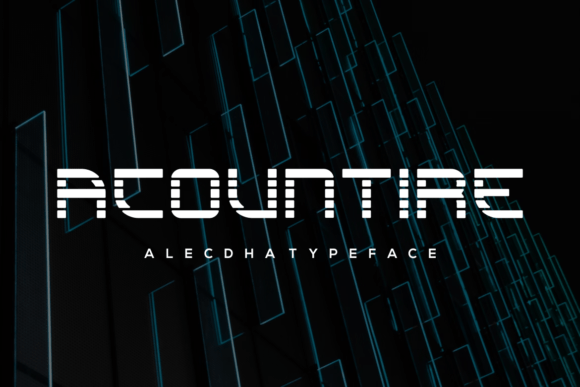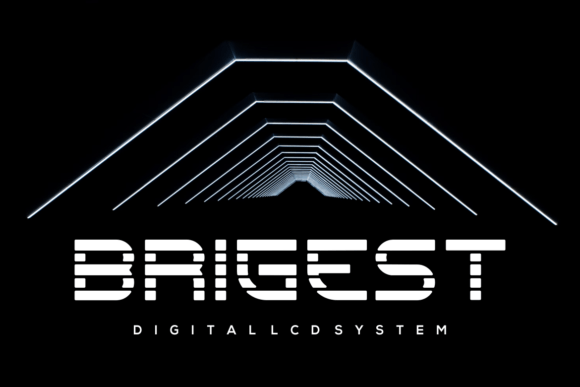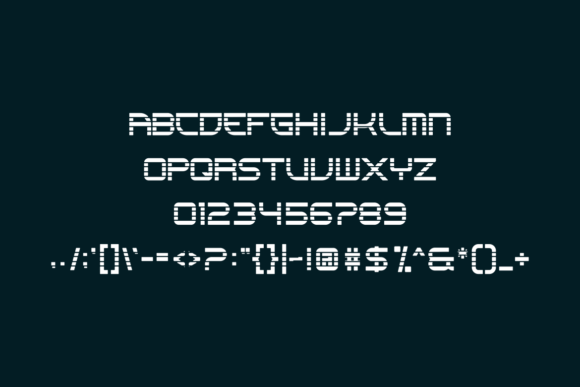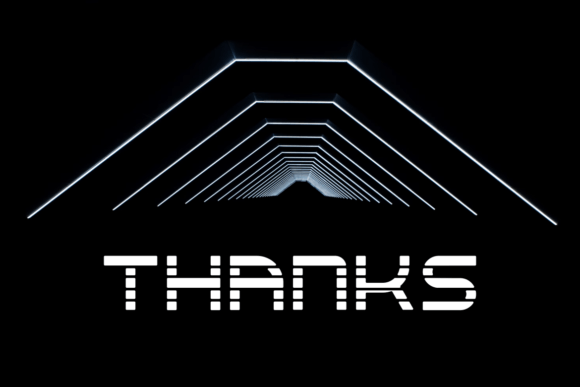
Introducing Alecdha Font: The Modern and Bold Display Font for All Occasions
In the world of typography, fonts play a crucial role in conveying messages, expressing creativity, and setting the tone for various designs. For designers, crafters, and DIY enthusiasts, finding the perfect font can be a daunting task. However, if you’re looking for a modern and bold display font that can elevate your designs, look no further than Alecdha Font. In this article, we’ll explore the features, benefits, and uses of Alecdha Font, and why it’s poised to become your go-to font for all occasions.
What is Alecdha Font?
Alecdha Font is a modern and bold display font designed to make a statement. Its sleek and contemporary design makes it perfect for a wide range of applications, from digital designs and presentations to crafts and greeting cards. With its clean lines, sharp edges, and bold typography, Alecdha Font is sure to grab attention and leave a lasting impression.
Key Features of Alecdha Font
So, what makes Alecdha Font so special? Here are some of its key features:
- Modern and Bold Design: Alecdha Font boasts a modern and bold design that’s perfect for making a statement.
- Versatile: This font is versatile and can be used for a wide range of applications, from digital designs to crafts and greeting cards.
- Clean Lines and Sharp Edges: Alecdha Font features clean lines and sharp edges that give it a sleek and contemporary look.
- Easy to Read: Despite its bold design, Alecdha Font is easy to read, making it perfect for body text and headlines.
Uses of Alecdha Font
Alecdha Font is a versatile font that can be used for various purposes. Here are some of the ways you can use Alecdha Font:
- Digital Designs: Use Alecdha Font to create stunning digital designs, such as social media graphics, blog posts, and website headers.
- Crafts: Alecdha Font is perfect for crafters who want to add a personal touch to their projects, such as handmade cards, scrapbooking, and DIY decorations.
- Presentations: Make your presentations stand out with Alecdha Font, which is perfect for titles, headings, and bullet points.
- Greeting Cards: Create beautiful and personalized greeting cards with Alecdha Font, which is perfect for special occasions, such as birthdays, weddings, and holidays.
Why Choose Alecdha Font?
With so many fonts available, why choose Alecdha Font? Here are some reasons why Alecdha Font stands out:
- Unique Design: Alecdha Font has a unique design that’s both modern and bold, making it perfect for designers and crafters who want to stand out.
- High-Quality: Alecdha Font is a high-quality font that’s designed to produce crisp and clear results, even at small sizes.
In conclusion, Alecdha Font is a modern and bold display font that’s perfect for designers, crafters, and DIY enthusiasts. With its versatile design, clean lines, and sharp edges, Alecdha Font is sure to become your go-to font for all occasions. Whether you’re creating digital designs, crafts, presentations, or greeting cards, Alecdha Font has the potential to elevate your designs and make them stand out. So why wait? Try Alecdha Font today and discover a world of creative possibilities!